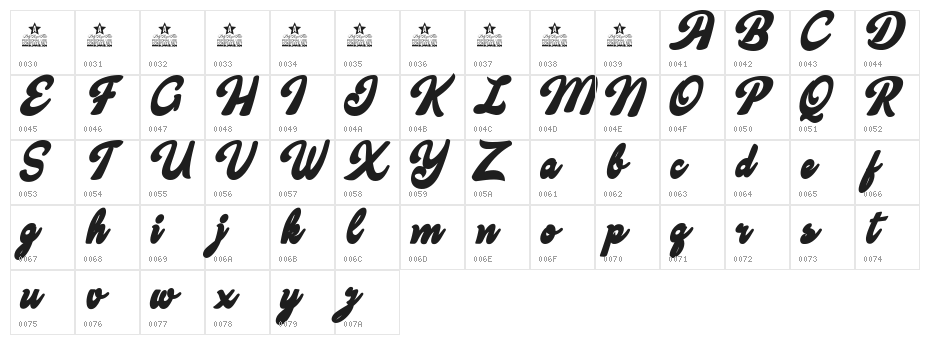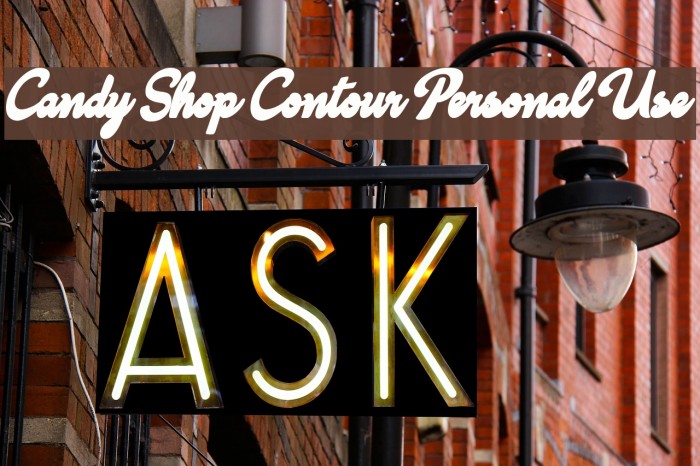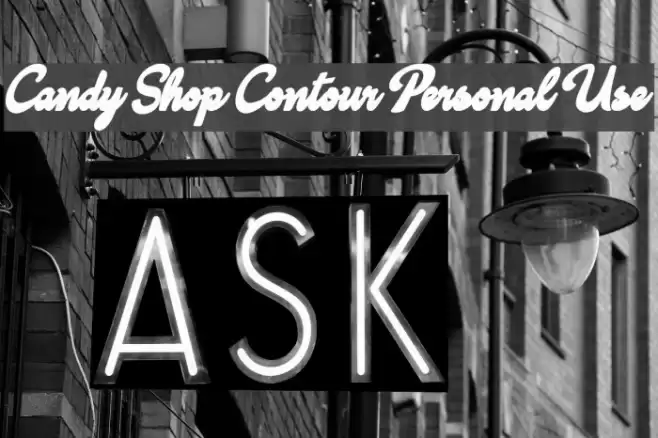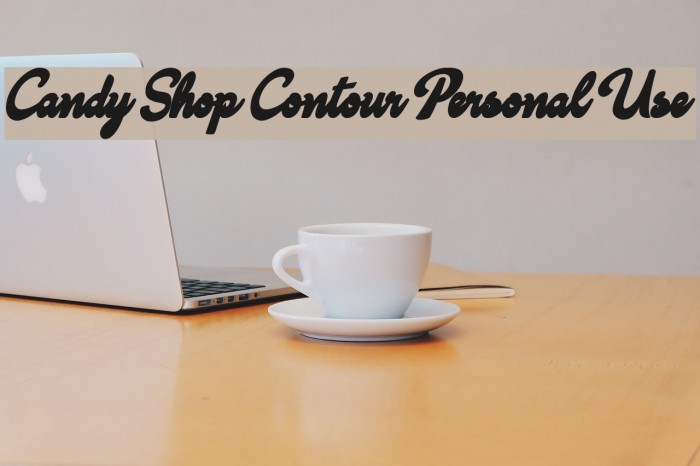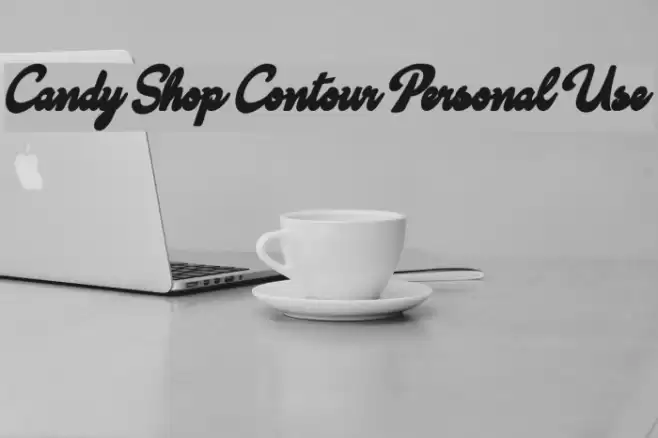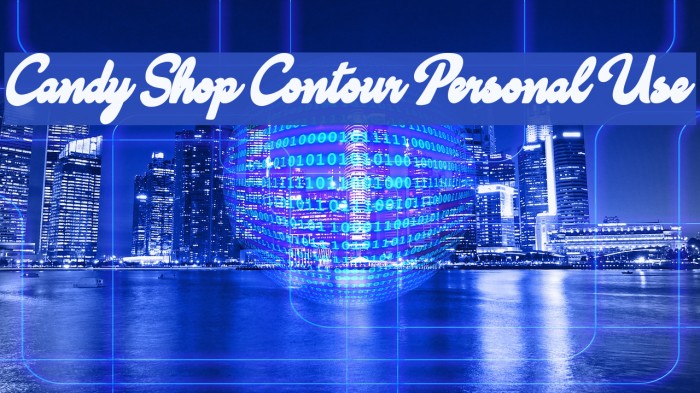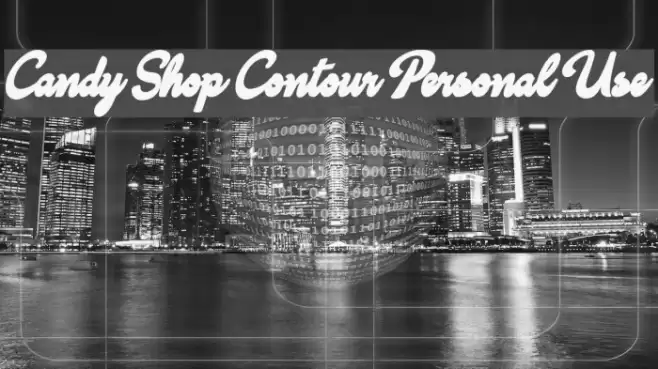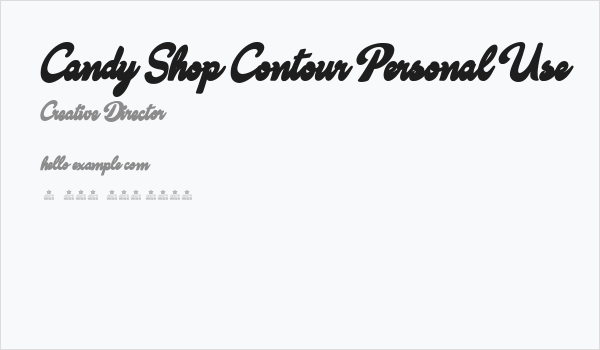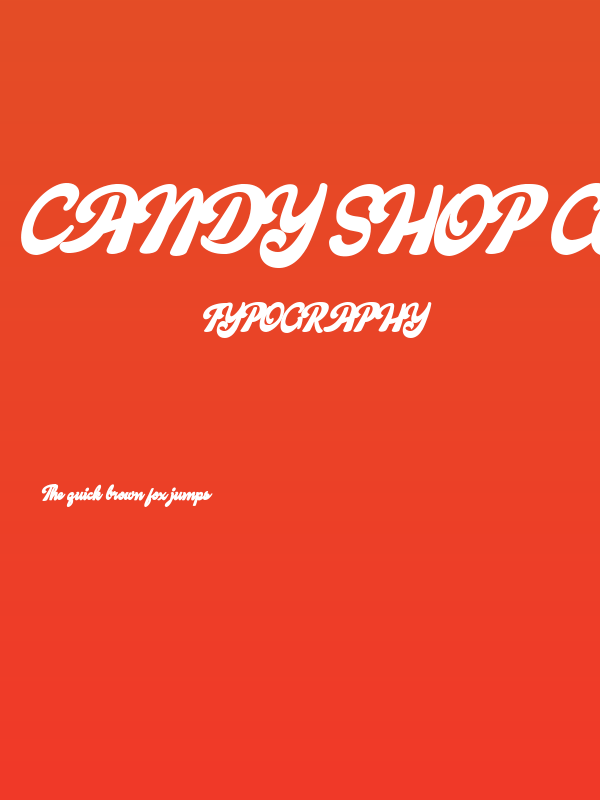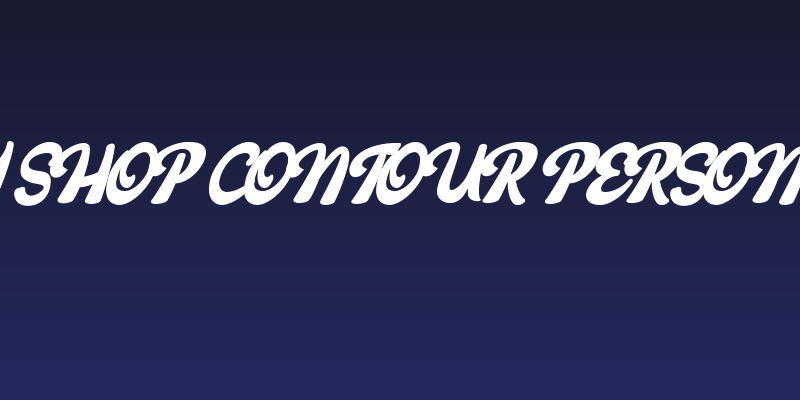
This font features a bold and dynamic script style with a playful and energetic flair. The letters are interconnected, creating a flowing and continuous look that is both eye-catching and stylish. The uppercase letters are slightly more upright, while the lowercase letters have a more pronounced slant, adding to the overall movement and rhythm of the text. The thick strokes and rounded edges give it a friendly and approachable feel, making it suitable for a variety of creative projects. The font's contour adds depth and dimension, enhancing its visual appeal.
| Proposed Projects | Ideal for branding, logos, packaging, and invitations where a lively and engaging script is desired. |